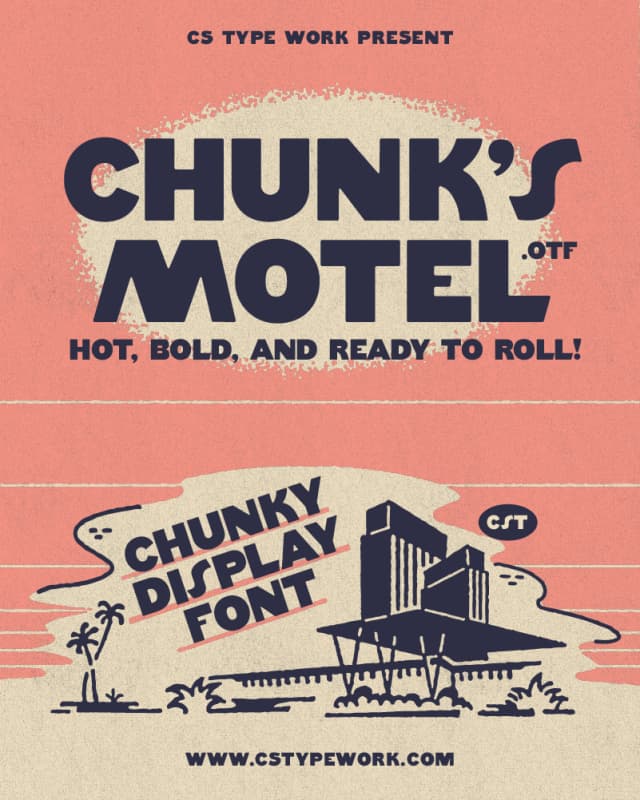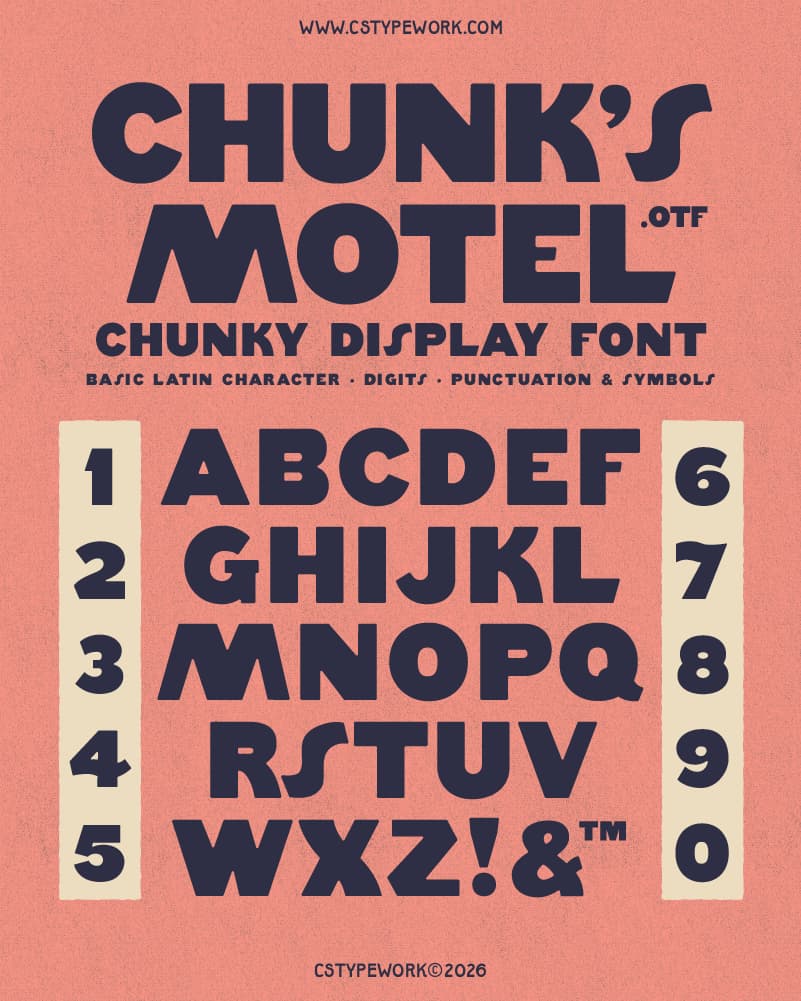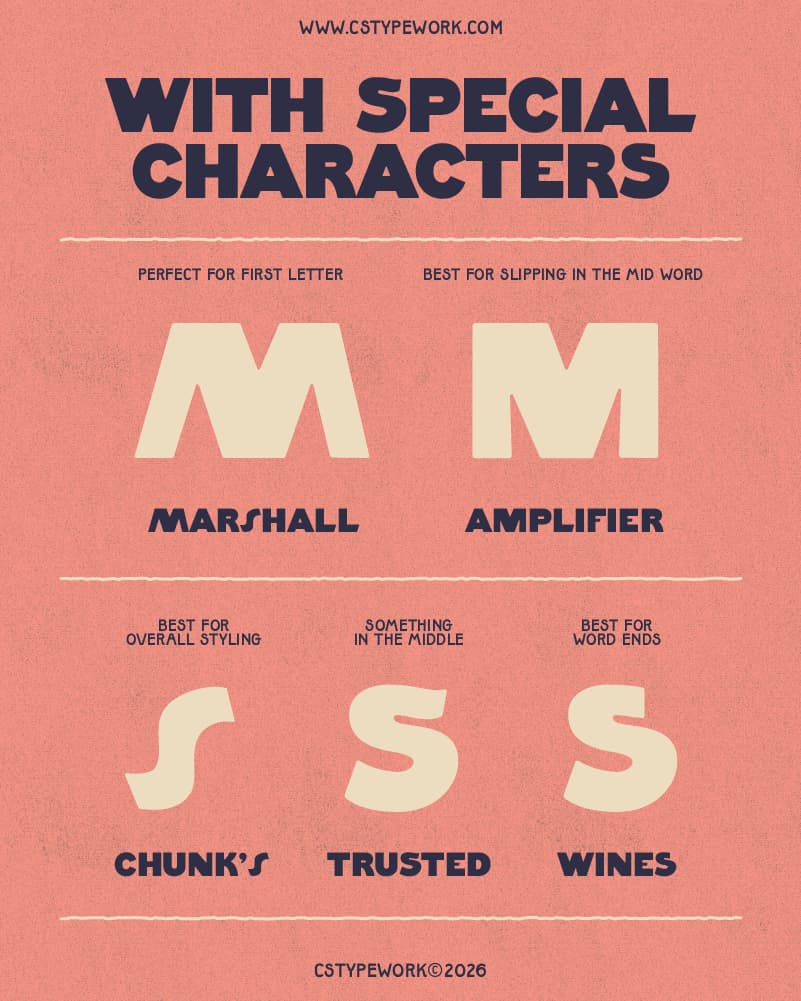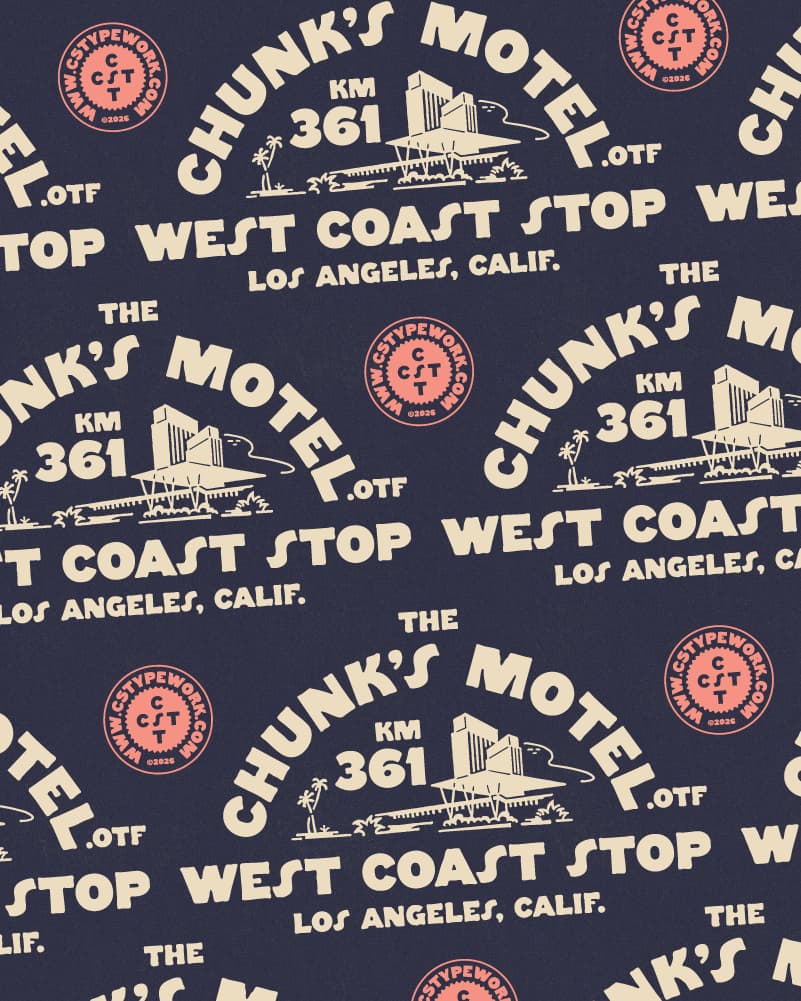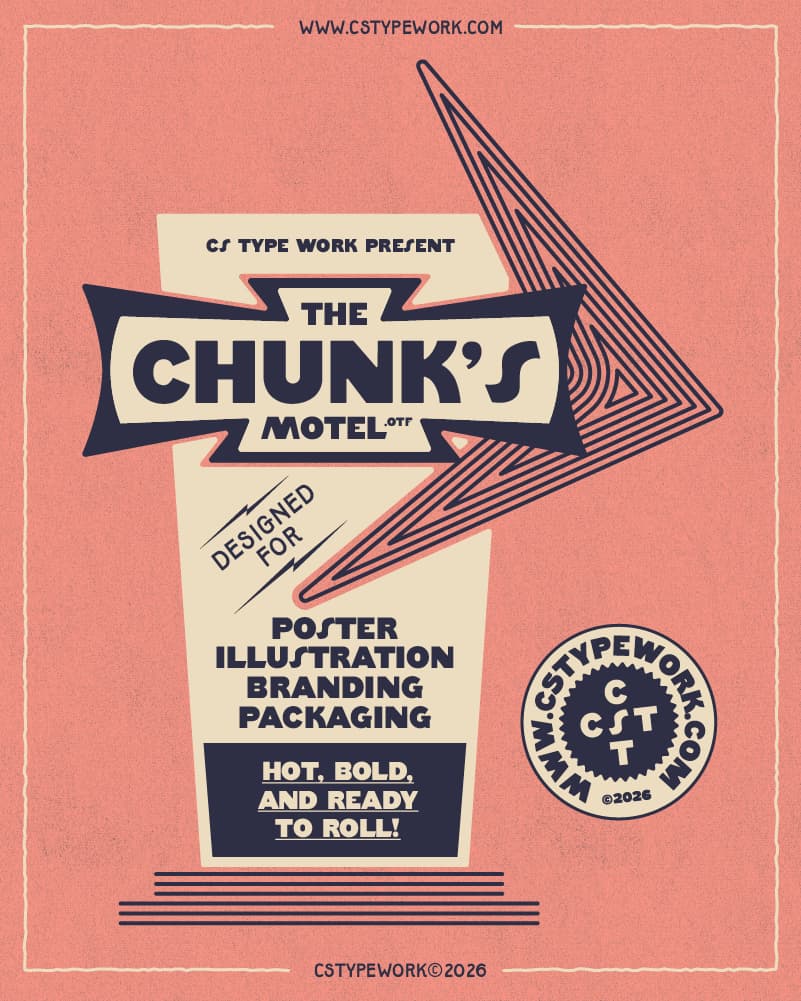
CHUNK'S MOTEL CST
CHUNK'S MOTEL CST is a chunky display typeface inspired by vintage roadside motels and the bold graphics of mid-century highway culture.
With thick shapes and playful proportions, the letterforms feel loud, friendly, and full of retro personality.
Perfect for posters, packaging, branding, merchandise, signage, and any design that wants a big nostalgic punch.
Built for designers who enjoy a little vintage charm and aren’t afraid to go bold.
Pull over, light up the sign, and let CHUNK'S MOTEL CST welcome everyone in.